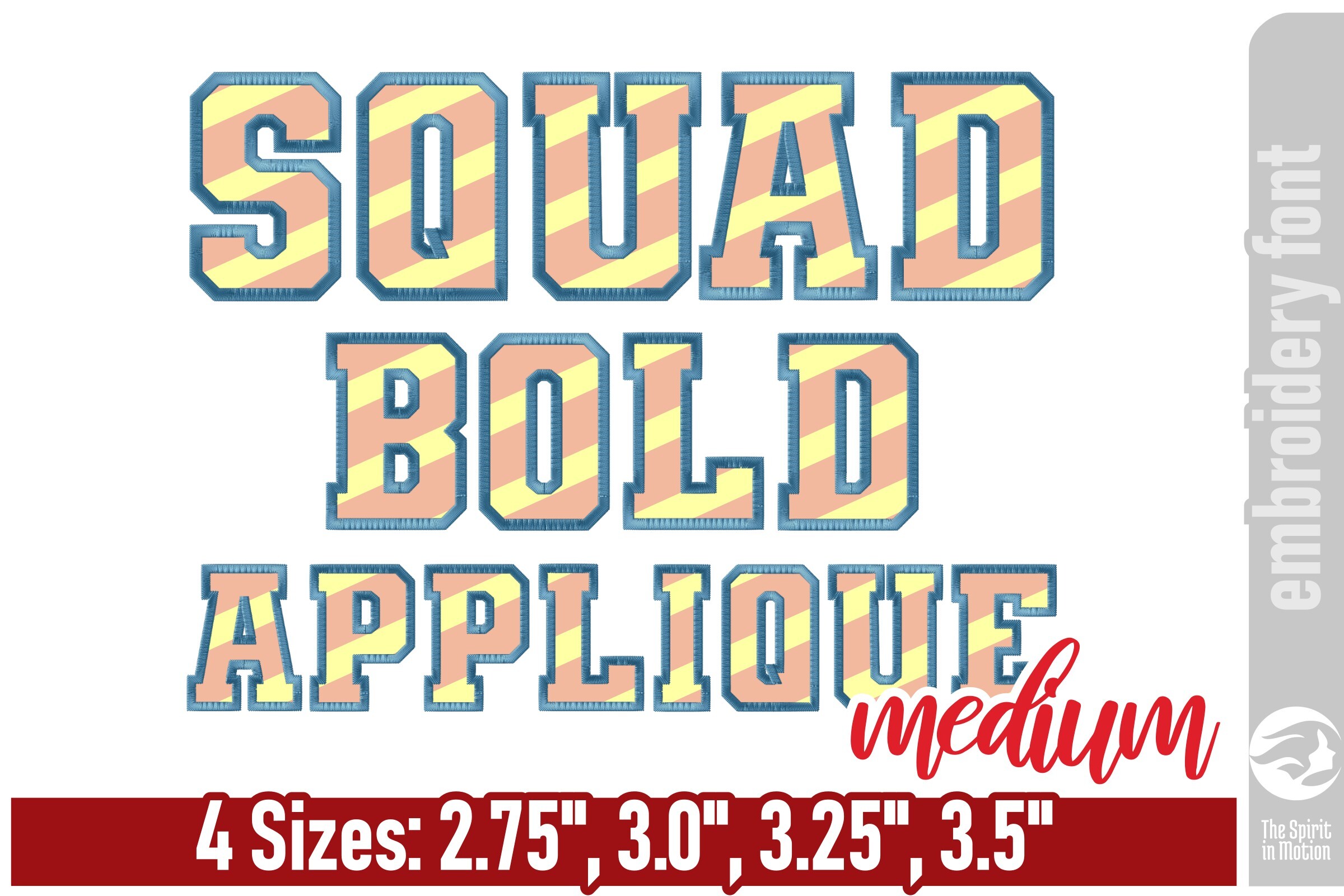
Squad Bold Applique Embroidery Font - M
Squad Applique Bold is a strong, all-caps varsity applique embroidery font designed for eye-catching sports and team projects. Its wide, powerful letters and included numerals make it perfect for jerseys, spirit wear, bags, and bold applique designs with a classic athletic look. The sizes and stitches information shown below is for “A” in each size. This is provided as a summary of what is available in this download file. For the full dimension details of all letters in this set, click on the More Sewing Info (PDF) button on this page.